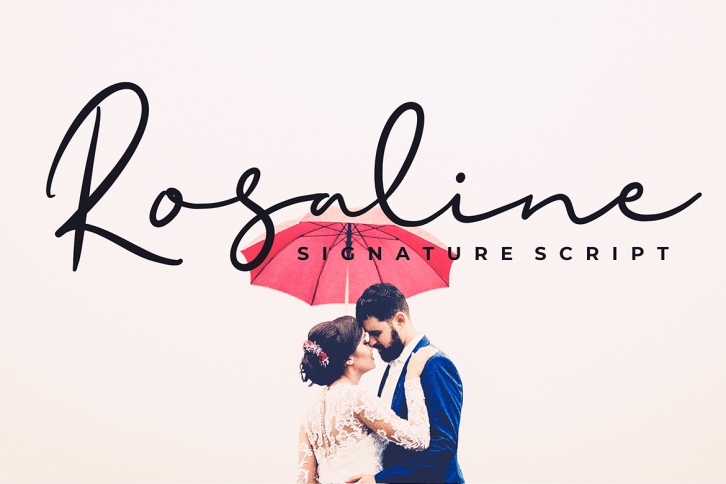
Rosaline Signature Script is a trendy and unique font with an authentic style. It was designed by Formatika Studio and it's a great choice for creative people who need such a font. It was released on January 7, 2020 and the file size is 11.73 MB. Rosaline Signature Script will add an organic vibe to any design idea!